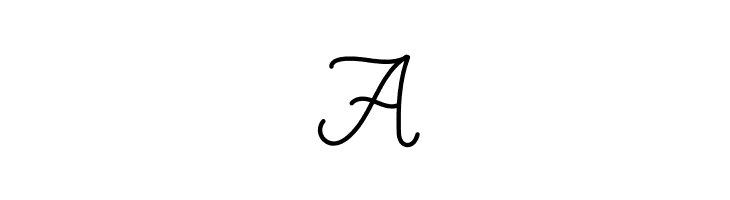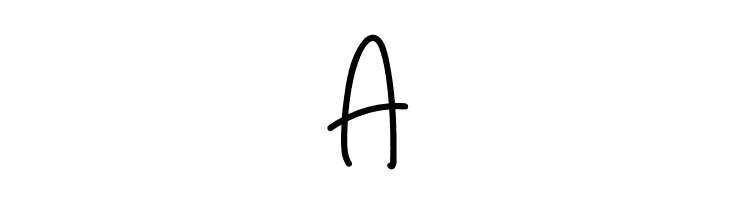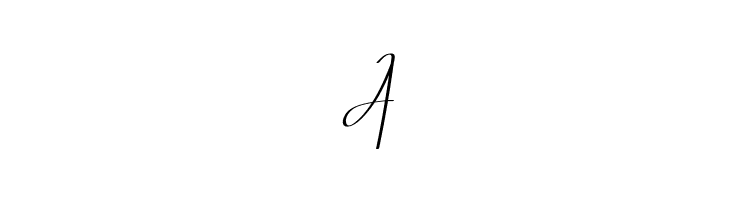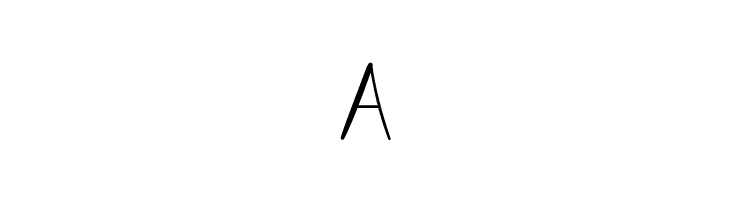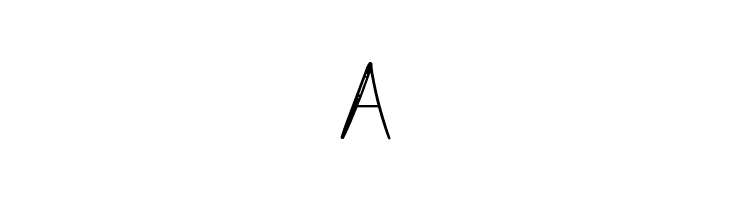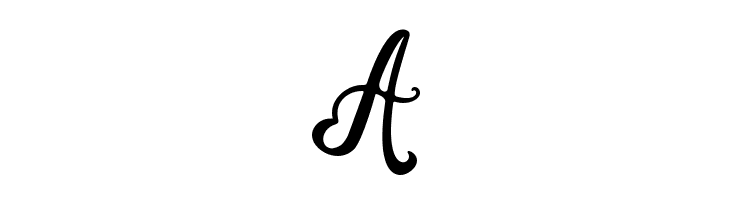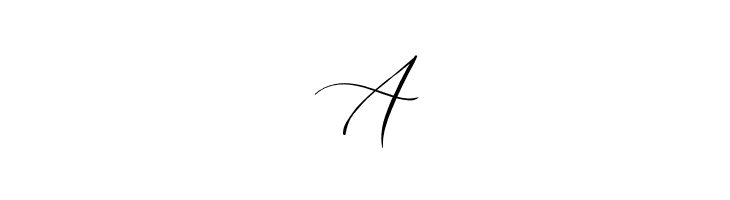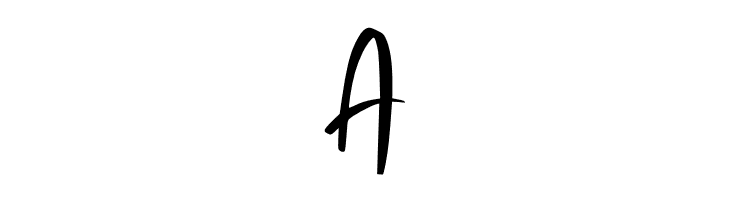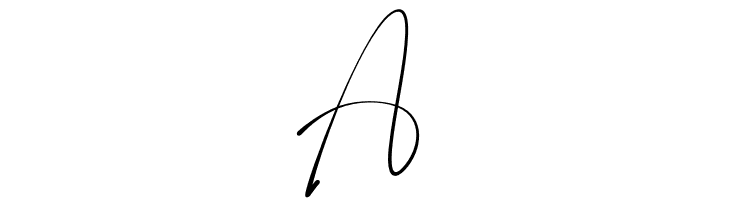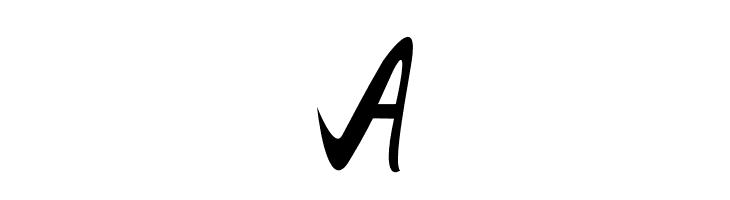
A playful, whimsical script font with flowing, interconnected letters.
A bold, playful script font with interconnected, flowing strokes.
A delicate, elegant script font with thin, hairline strokes and fluid connections.
A bold, brush-style script font with expressive, flowing strokes.
A bold, dynamic script font with flowing, cursive letterforms.
An elegant script font with flowing, interconnected letters and intricate swirls.
Casual handwritten script with smooth, rounded strokes.
An elegant and decorative script font with flowing, cursive letterforms.
A playful, handwritten font with rounded edges and a casual style.
An elegant script font with fluid, graceful strokes and artistic flair.
A playful and elegant script font with flowing, cursive letters.
A playful, hand-drawn font with tall, narrow letters and a whimsical style.
A playful, artistic inline font with a whimsical and creative style.
A charming and elegant handwritten script with fluid, flowing letters.
A bold, vintage script font with elegant curves and consistent strokes.
A bold, playful handwritten font with fluid strokes and a dynamic slant.
A bold, modern font with diagonal line textures for a dynamic look.
An elegant, flowing script font with graceful curves and a sophisticated style.
A bold, blocky font with exaggerated, playful characters.
A graceful cursive script font with elegant, flowing lines.
A graceful and elegant script font with flowing, cursive letterforms.
A flowing, cursive font with elegant, interconnected characters.
A cursive, handwritten font with elegant loops and dynamic strokes.
An elegant, flowing script font with delicate strokes and graceful curves.
A playful handwritten font with whimsical curves and smooth, rounded forms.
A playful, artistic script font with fluid, dynamic strokes.
A bold, playful font with a dynamic and whimsical style.
A bold, cursive script font with dynamic and fluid strokes.
A bold, expressive script font with dynamic, cursive letterforms.
A modern, handwritten-style font with fluid, cursive characters.
A bold, fiery font with jagged, flame-like edges for dramatic impact.
A bold, angular font with a futuristic and geometric design.
A sophisticated script font with high contrast and elegant, flowing strokes.
An elegant and flowing script font with graceful, cursive letterforms.